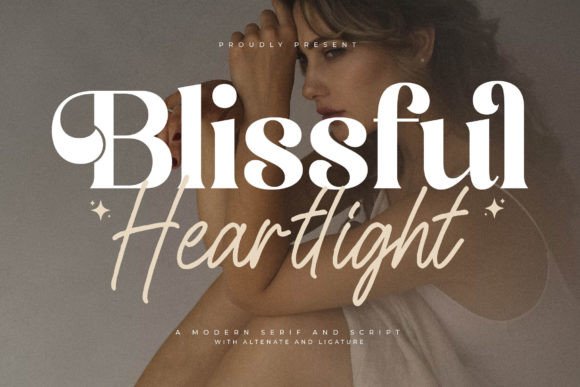
Introducing Blissful Heartlight Font: Elevate Your Designs with Elegance and Luxury
In the world of typography, fonts play a crucial role in conveying the tone and personality of a brand, product, or service. A well-crafted font can instantly elevate a design, making it more captivating and memorable. Today, we’re excited to introduce the Blissful Heartlight Font, a stunning serif and script typeface duo that exudes elegance, luxury, and modernity.
What Makes Blissful Heartlight Font Special?
The Blissful Heartlight Font is a unique and versatile typeface designed to cater to a wide range of design needs. Its distinctive style and modern look make it an ideal choice for various applications, including:
- Elegant and luxury logos
- Book or movie title designs
- Fashion brands
- Magazines
- Clothes
- Lettering
- Quotes
- And many more
Benefits of Using Blissful Heartlight Font
The Blissful Heartlight Font offers numerous benefits to designers, including:
- Improved Readability: The serif and script typefaces are designed to be highly readable, making it perfect for body text and headings.
- Elegant and Luxurious Look: The font’s unique style and modern look instantly elevate designs, giving them a sophisticated and high-end feel.
- Versatility: The Blissful Heartlight Font can be used for a wide range of design applications, from logos and titles to magazines and clothing.
Design Inspiration with Blissful Heartlight Font
The Blissful Heartlight Font is perfect for designers looking to create stunning and elegant designs. Here are some design inspiration ideas to get you started:
- Create a luxurious logo for a high-end fashion brand
- Design a beautiful book cover or title page
- Develop a sophisticated magazine layout
- Design a stylish clothing label or packaging
- Create a quote or typography-based artwork
- Font Type: Serif and Script Typeface
In conclusion, the Blissful Heartlight Font is an exceptional serif and script typeface duo that offers elegance, luxury, and versatility. With its PUA encoding and wide range of glyphs and ligatures, it’s perfect for various design applications. Whether you’re a designer, typographer, or simply someone looking to elevate your brand, the Blissful Heartlight Font is an excellent choice.